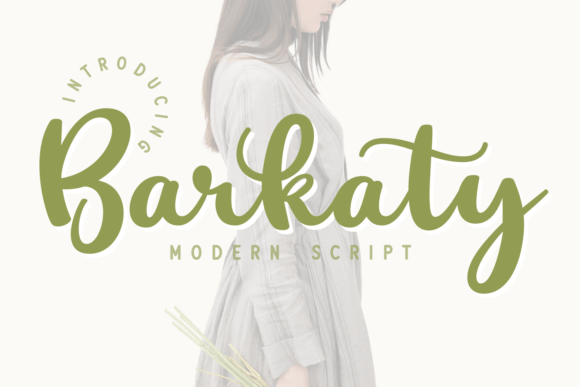
Introducing Barkaty Font, the perfect blend of elegance and modernity, crafted by Kelik - 7NTypes. With its unique calligraphic influence, Barkaty is an exquisite handwritten font that will captivate your audience from the first glance.
Bring your projects to life and elevate your creativity with Barkaty. Whether it's a wedding invitation, a branding project, or a social media post, Barkaty's versatility makes it perfect for any occasion.
But Barkaty is more than just a font; it's an experience. Its smooth curves and playful strokes evoke emotions of joy, love, and excitement, making it ideal for any design that requires a touch of personality.
Not only is Barkaty visually stunning, but it is also easy to use. Its flawless execution ensures that every letter and symbol aligns perfectly, creating a seamless flow that is pleasing to the eye.